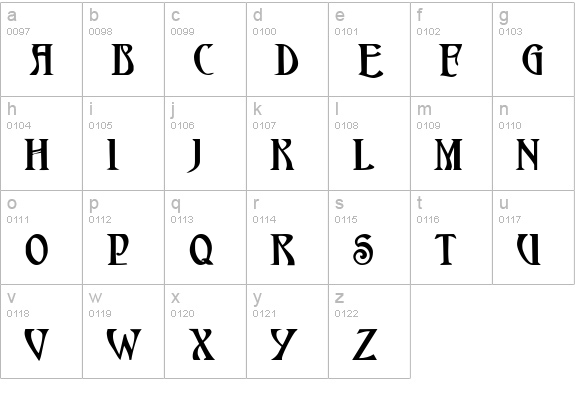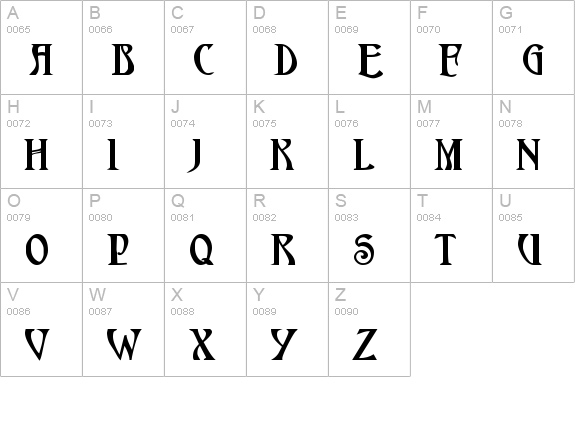
HardinCapsWide Bold Font Details
HardinCapsWide Bold is a strong, high-contrast variant in the HardinCapsWide typeface family \xE2\x80\x94 well suited to headlines, attention-grabbing titles, and strong calls-to-action.
HardinCapsWide Bold is a captivating display font that exudes strength and confidence. With its bold and wide letterforms, this font commands attention and makes a bold statement in any design project. Its characters are meticulously designed to stand out and leave a lasting impression. This font is perfect for headlines, logos, posters, and any other design that requires a powerful and impactful typographic element. The bold weight adds a sense of authority and prominence, making it ideal for conveying a strong and assertive message. HardinCapsWide Bold is not only visually striking, but it also offers a high level of versatility. It can be used in a variety of design styles, from modern and minimalistic to vintage and retro. Its clean lines and balanced proportions ensure legibility even at smaller sizes. The best part? HardinCapsWide Bold is available to download for free at FontsMarket.com. This means that you can easily add this powerful and eye-catching font to your design arsenal without having to spend a dime. Whether you are a professional designer or a hobbyist, this font is a valuable addition to your collection. Don't miss out on the opportunity to elevate your designs with the impactful presence of HardinCapsWide Bold. Download it for free today at FontsMarket.com and let your creativity soar to new heights.